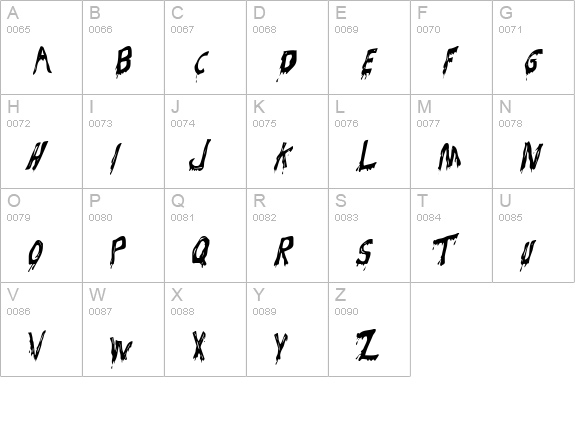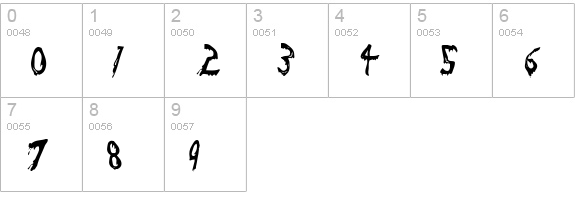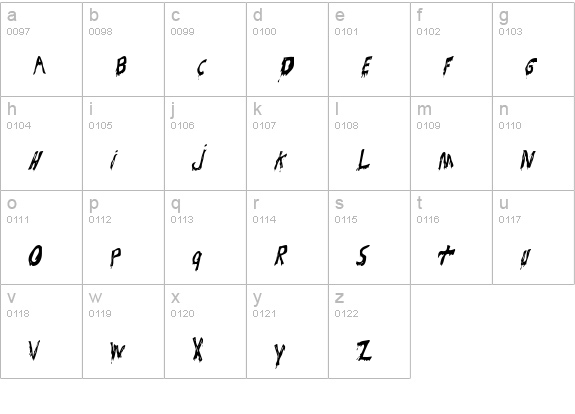
Bloodsuckers Font Details
Introducing Bloodsuckers font, a hauntingly beautiful typeface that will add a touch of mystery and elegance to your designs. This unique font features intricate details and sharp edges, giving it a bold and edgy look that is perfect for creating eye-catching headlines and titles. With its dramatic serifs and striking curves, Bloodsuckers font is sure to make a statement in any project. What's even better is that Bloodsuckers font is completely free to download at FontsMarket.com. That's right, you can add this stunning font to your collection without spending a dime. Whether you're working on a spooky Halloween design, a gothic-inspired project, or simply want to add a touch of darkness to your work, Bloodsuckers font is a versatile and stylish choice. Download it today and unleash the power of this captivating typeface in your designs.